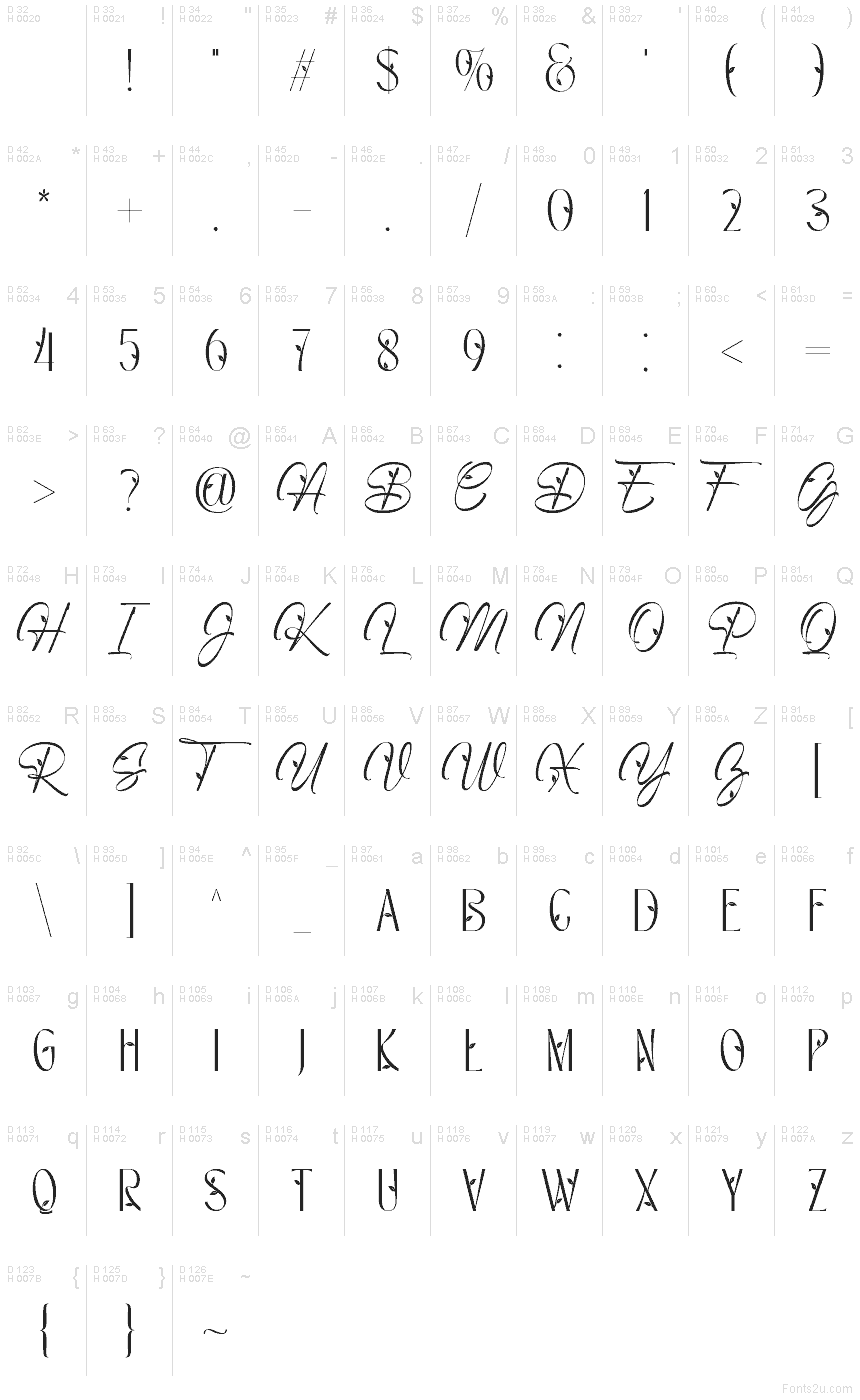
Bremoleaf Regular
Bremoleaf font by Alit Design is a decorative, nature-inspired display font inspired filled with elegant ornamental details. Its condensed width subtly adds more black to the text improving its contrast. Letters also come with floral decorations that further elevate the sophisticated feel of this font.
Use Bremoleaf for poster designs, book covers, movies, games visuals, magazine layouts and printing. It’s also an excellent choice when designing for packaging projects related to health or cosmetic products such as perfumes and essential oils.